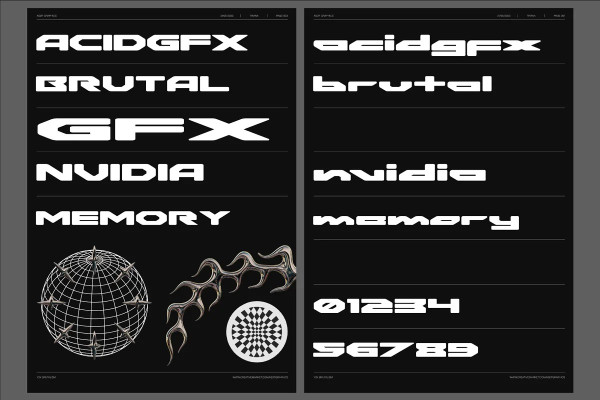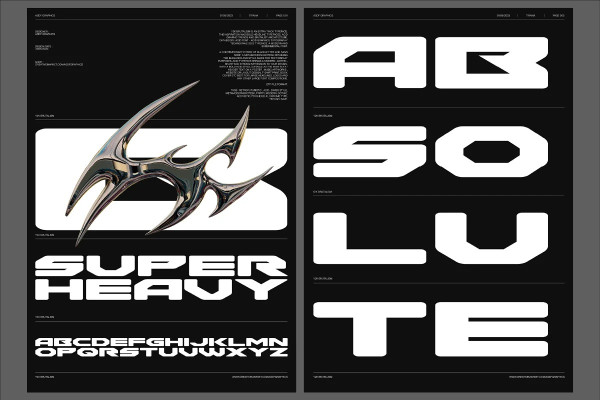
Y2K Brutalism Font
Y2K Brutalism Font, a metamodern grotesk font retaining the elegance and style. Made for text display purposes, Y2K Brutalism brings a modern , sharp and strong impression to your design. With a bold acid style, suitable as the main text / header text on a poster , music artworks , website or layout design, t-shirt print, book cover etc best for large headlines, logos and any other large font compositions.